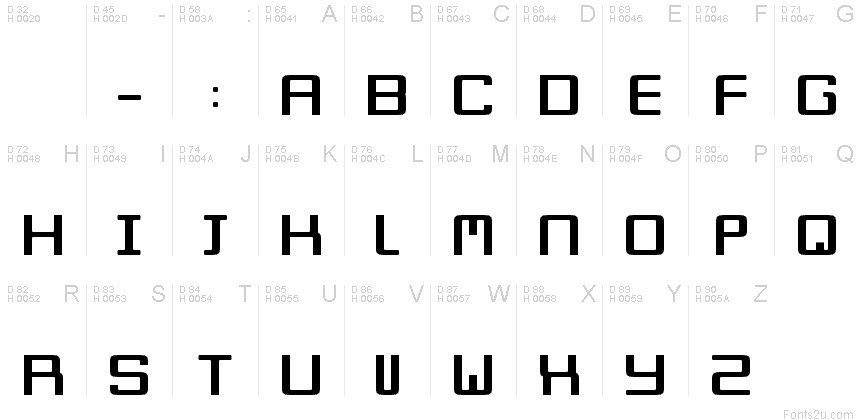
CIL by Matthew Gadd of Darkotter360 is a free sans serif with broad, forceful letterforms. Rounded outer corners soften the otherwise square construction, and the low-contrast strokes create a dense, industrial silhouette. The forms are broad and emphatic.
Posters provide an apt medium for its disciplined geometry, especially for sports events, music promotions, and streetwear campaigns. In magazine design, the assertive shapes can turn section openers and feature titles into graphic elements with the blunt impact of printed signage.
CIL